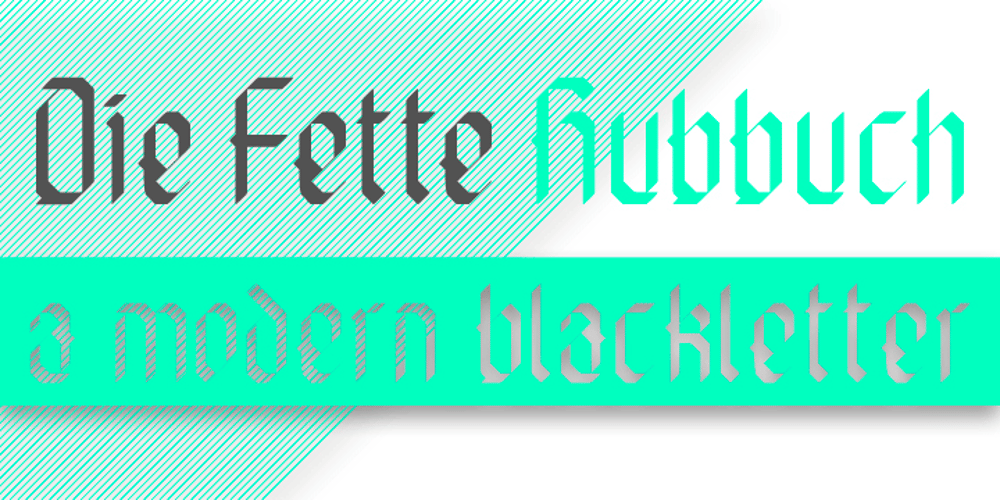
Die fette Hubbuch Font Family was designed by Patrick Hubbuch and published by Volcano Type. Die fette Hubbuch contains 2 styles and family package options. Die Fette Hubbuch is a contemporary blackletter typeface, based on a geometric grid. Contrary to the most classical blackletter typefaces, this typeface has no curves. Those individual letter forms were created by using only 45°-angles.